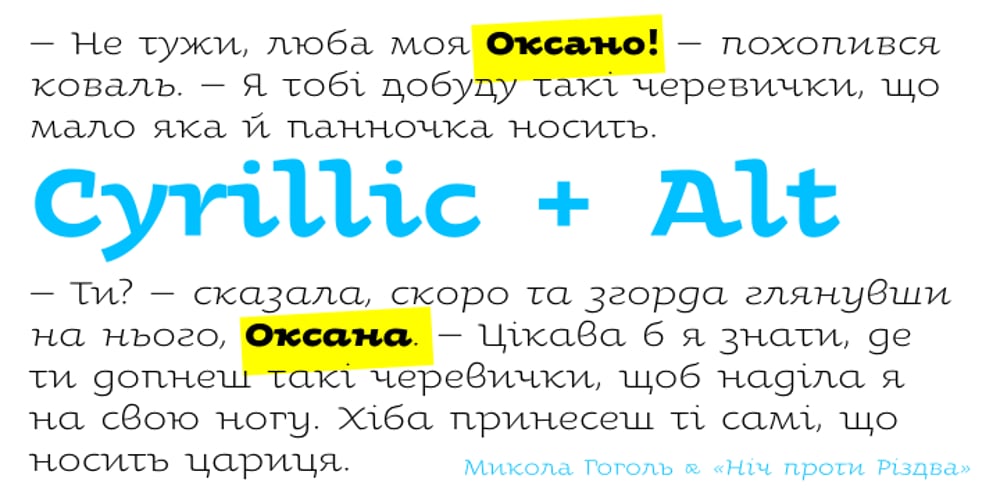
Oksana Font Family was designed by Andrij Shevchenko and published by AndrijType. Oksana contains 12 styles and family package options. Oksana is a Ukrainian female name. As a true native Ukrainian, this semi-serif type family has a strong structure, but soft and friendly nature. In six weights from thin to heavy it is perfect for titles and short texts lines. Look how people use it: http://use.type.org.ua/tagged/oksana